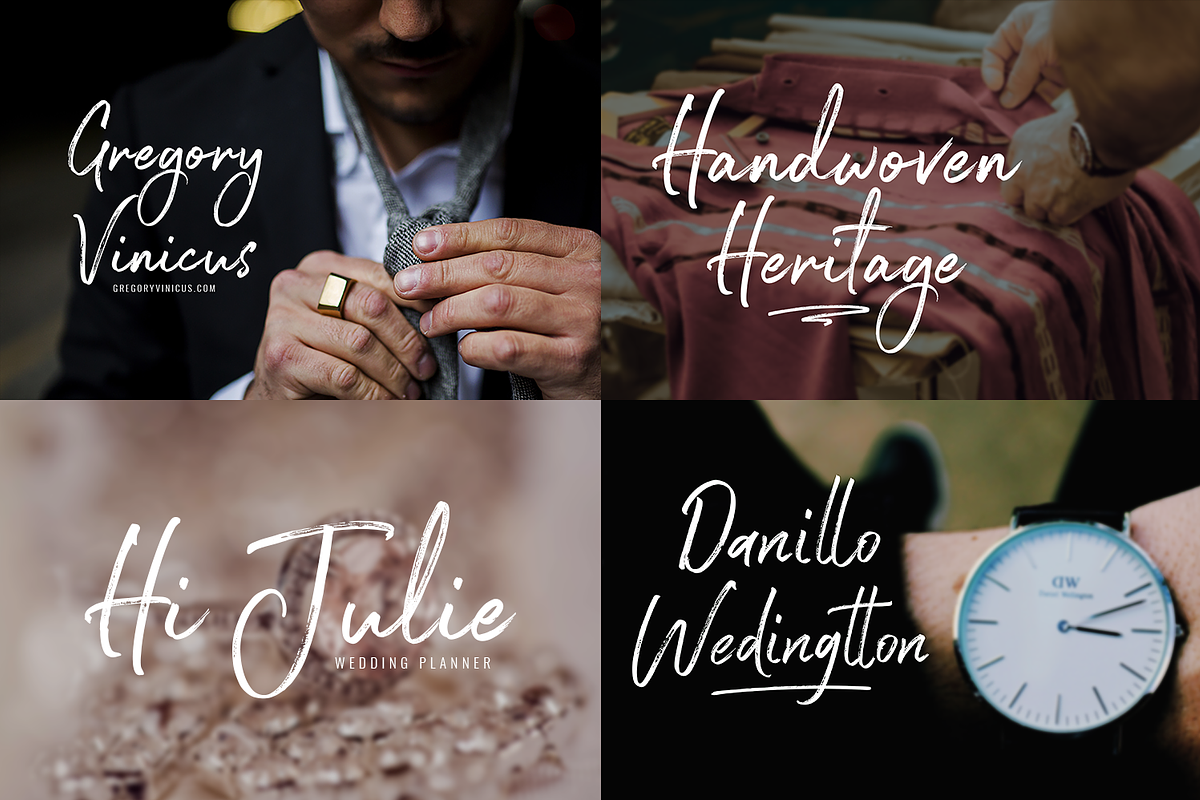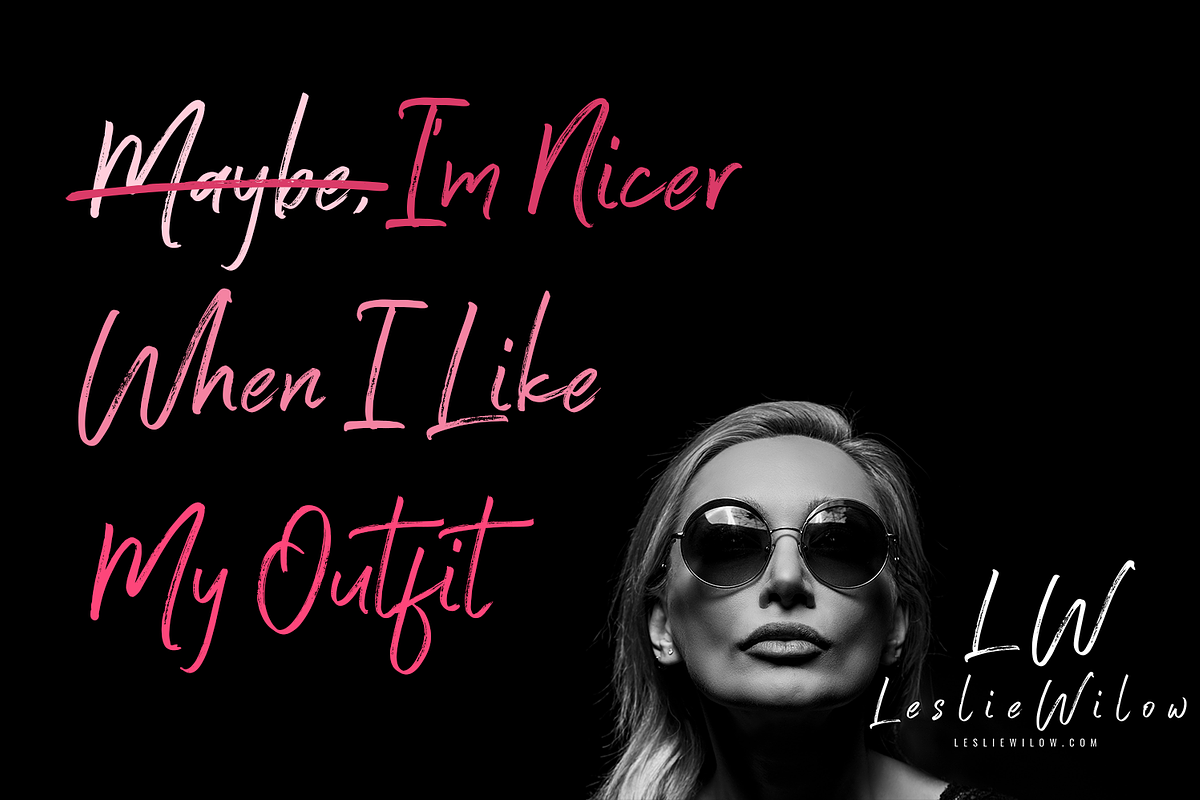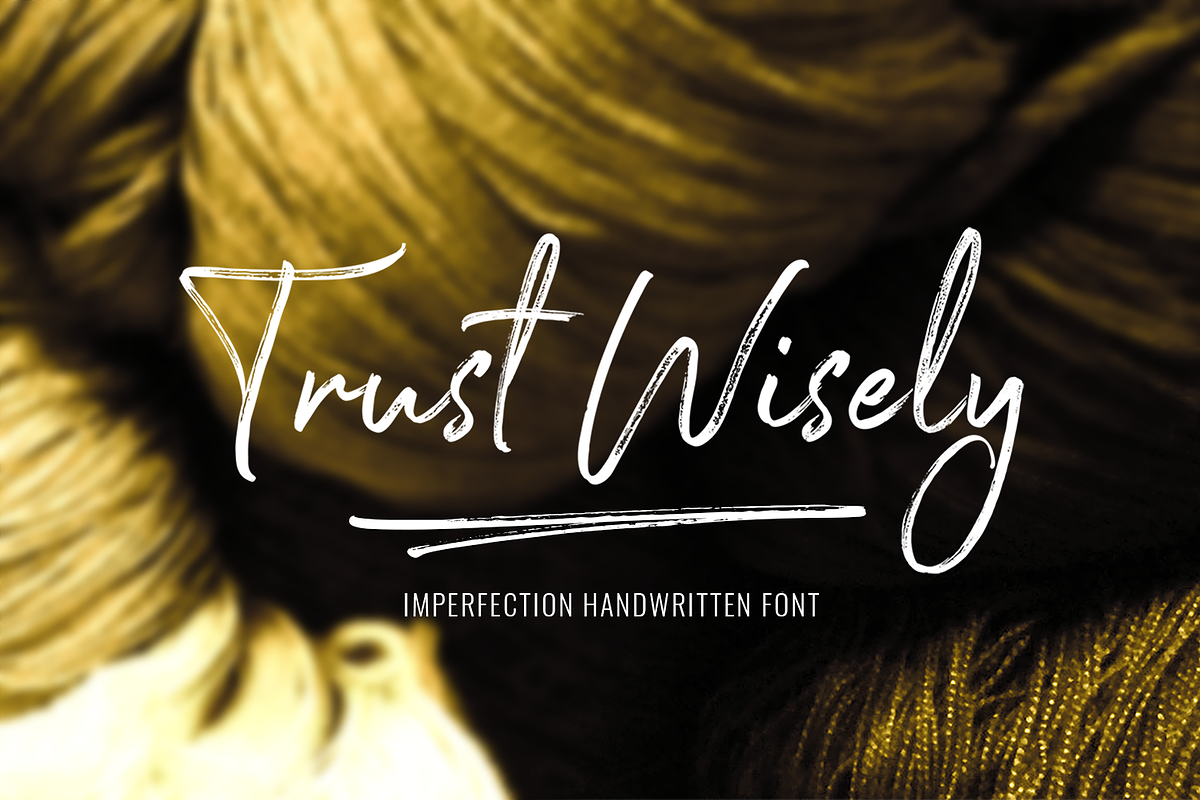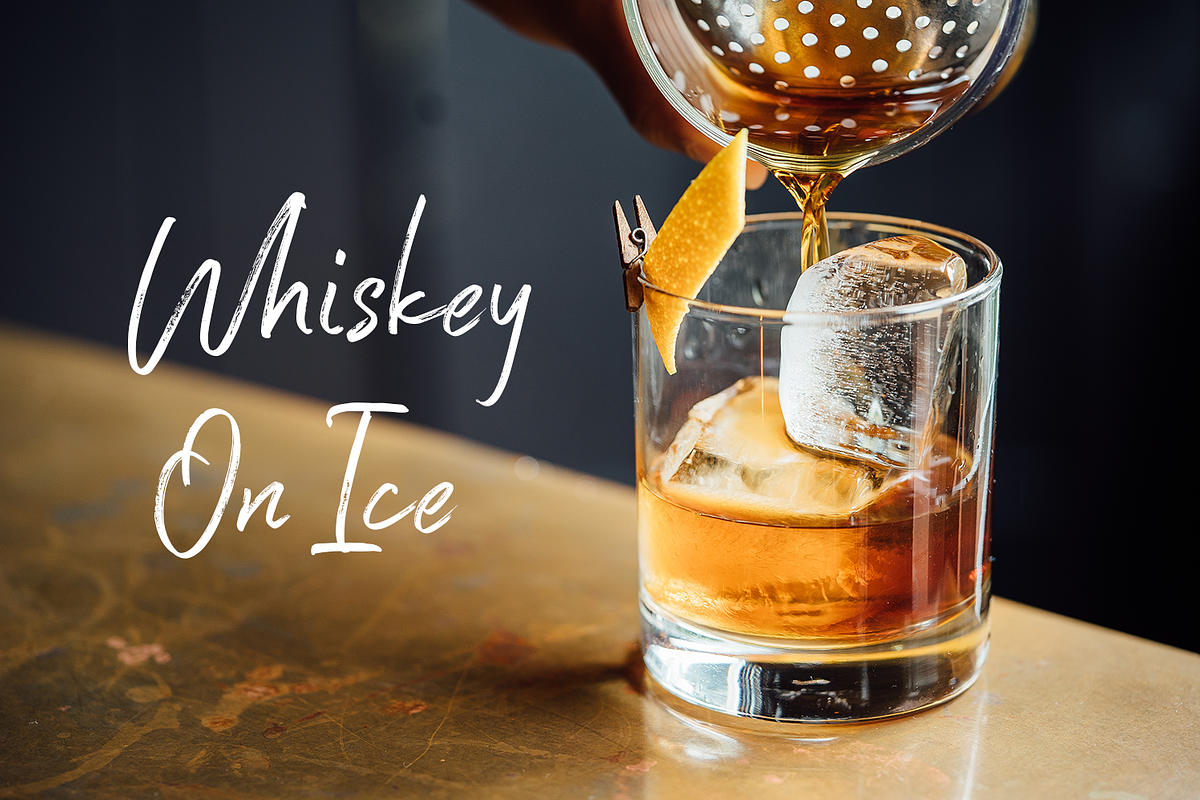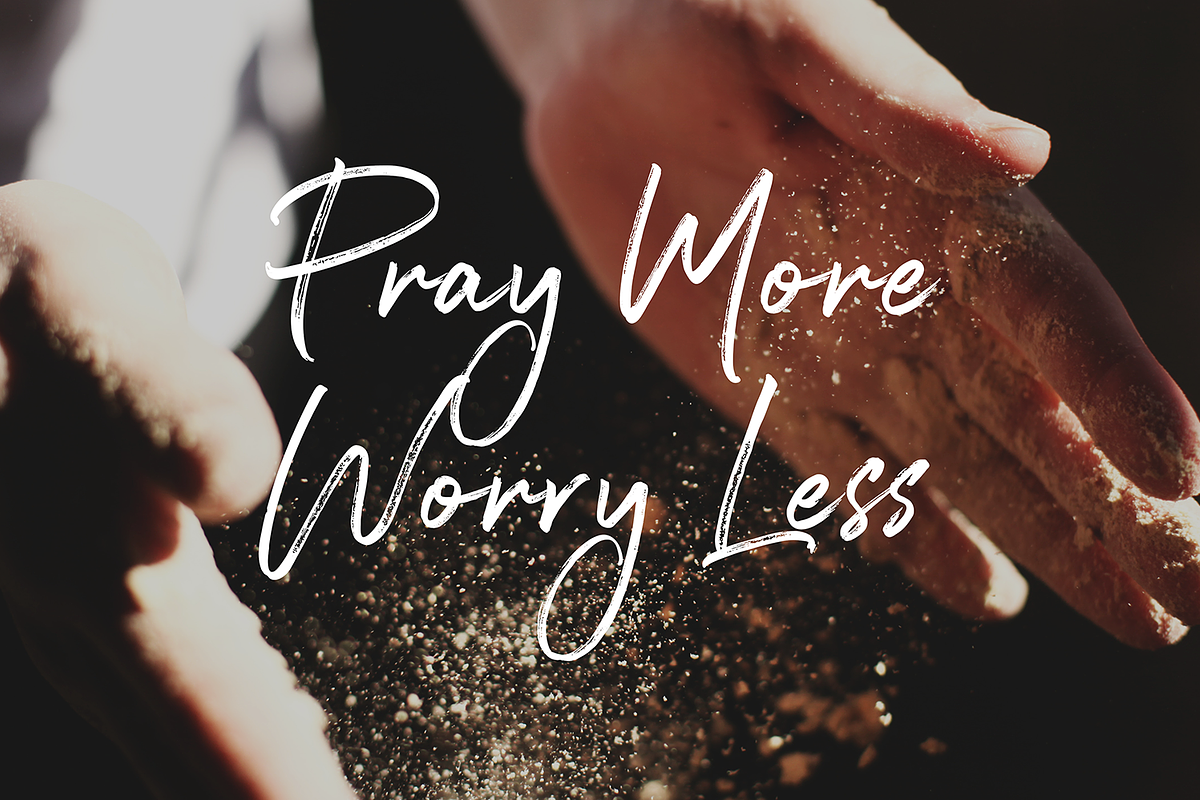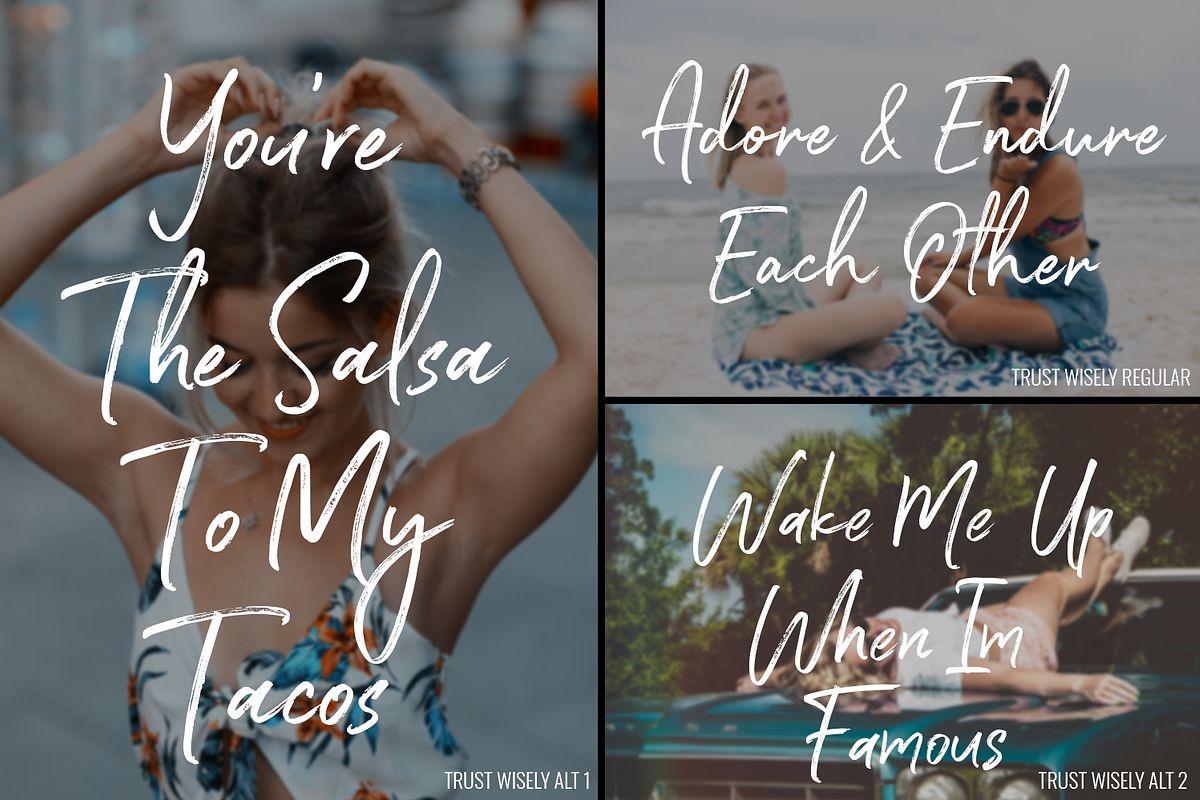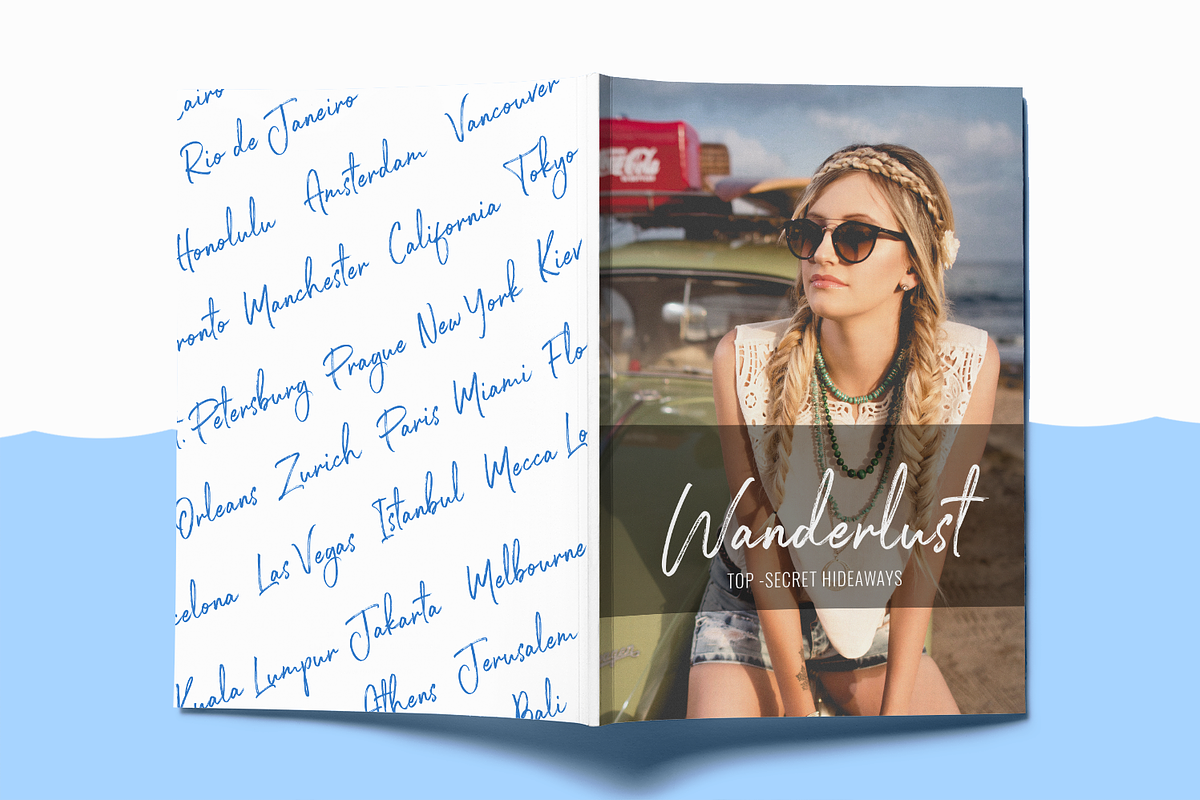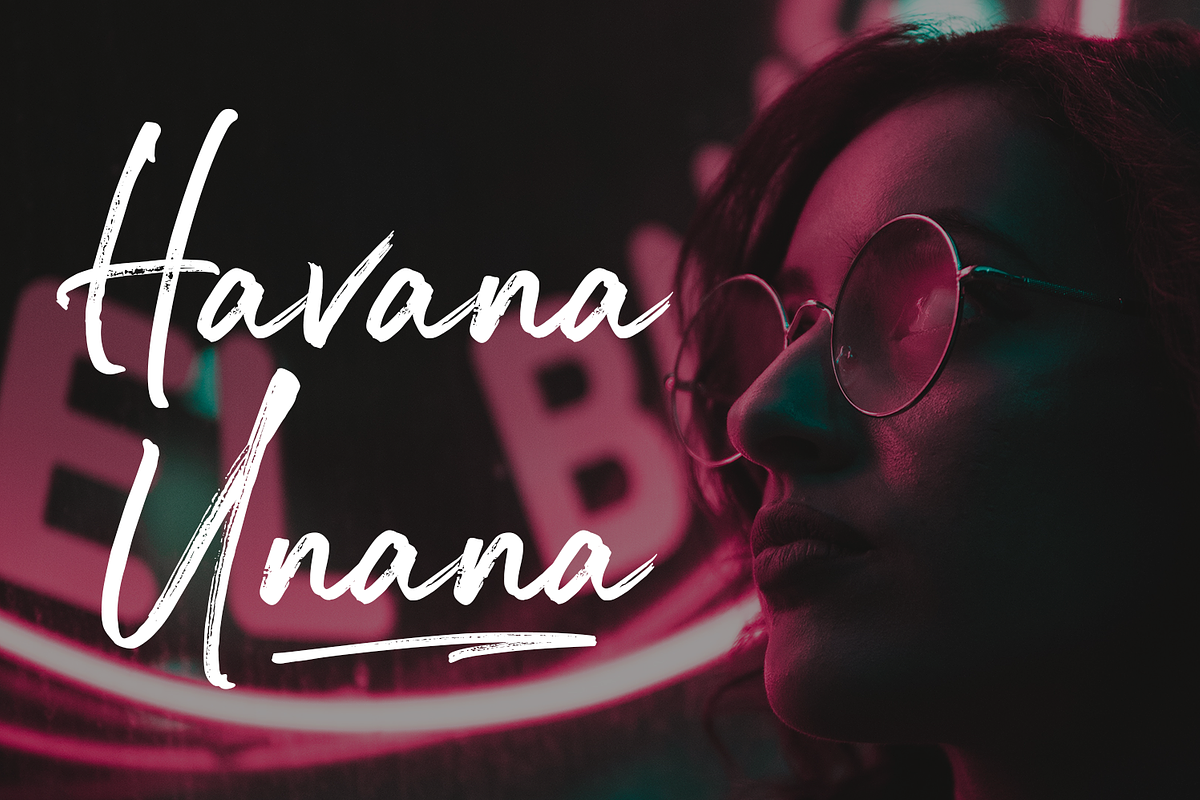
Trust Wisely Fonts
1. Trust Wisely - A signature handwritten script font containing upper & lowercase characters, full set of punctuation, numerals and ligatures.
2. Trust Wisely Alt 1 - Second version of Trust Wisely. This font also contains all new set for upper & lowercase characters.
3. Trust Wisely Alt 2 - This 3rd version has quite unique because it has different form of writing but still with the same style, also contains all new set for upper, lowercase characters and ligatures.
4. Trust Wisely Swash - For folks who loves handmade swashes to give a unique finishing touch or can also use it as a scribble on writing.
All these fonts include multilingual support, also you can combined them together to find the best shape you want.
Thanks for checking out Trust Wisely - A rustic-style handwritten font that has great signature movement. This font is made with quick hand freestyle lettering with brush pen. Trust Wisely is perfect for all your needs, such as a logo, printed quotes, badge, insignia, packaging, headline, poster, t-shirt/apparel, greeting card, and wedding invitation, & etc.